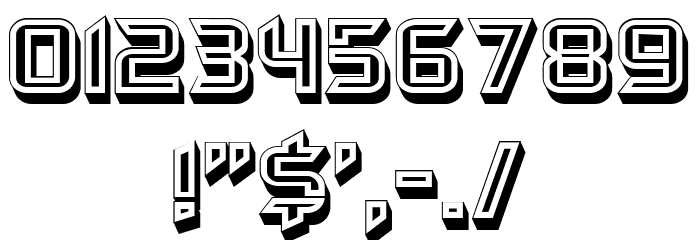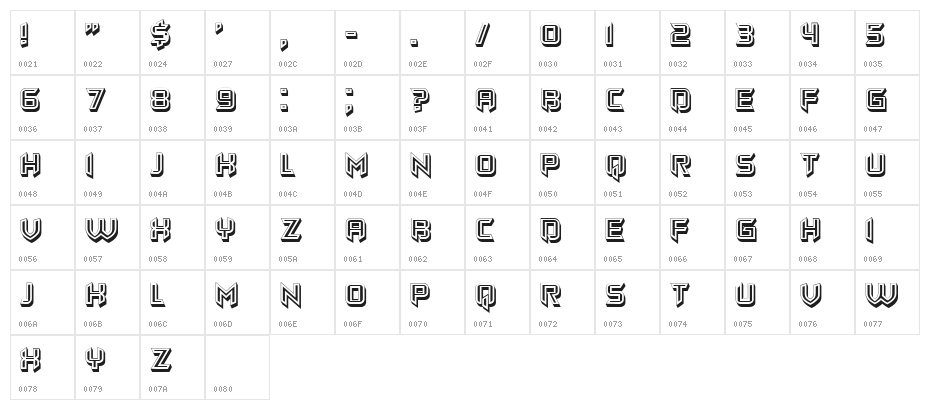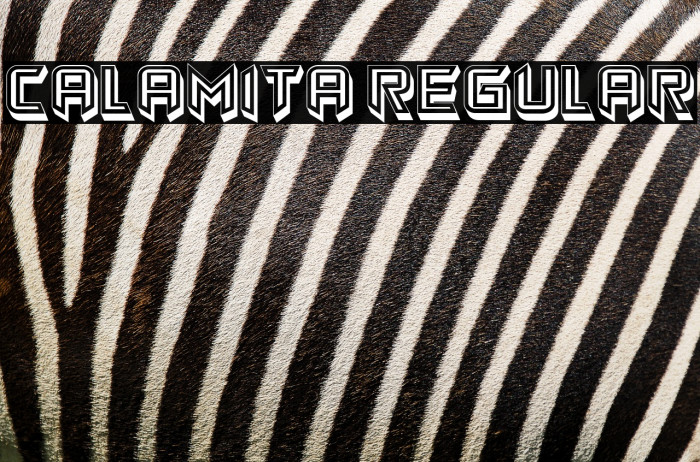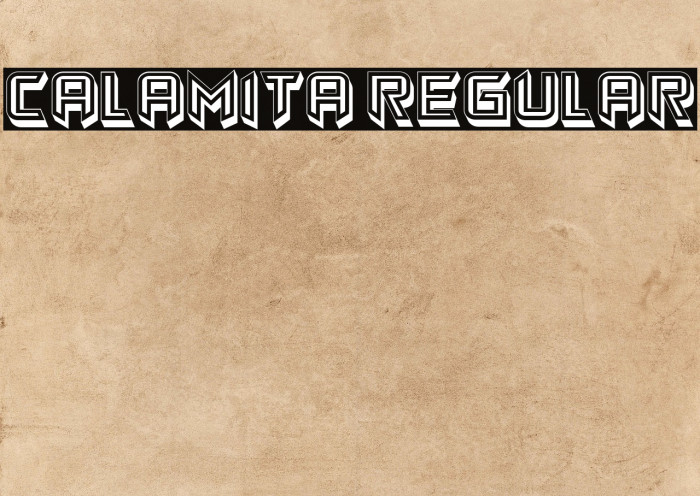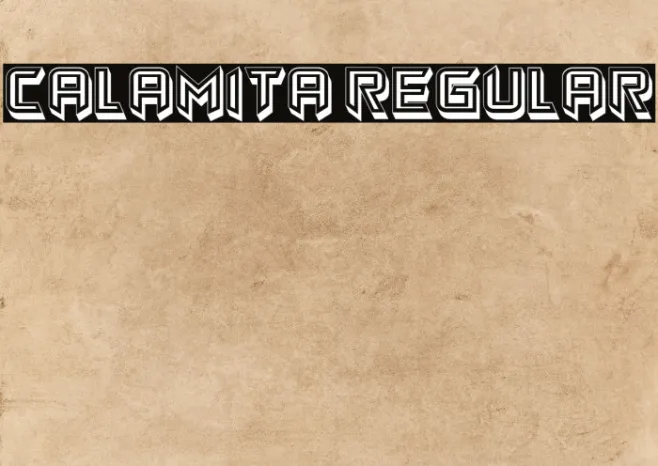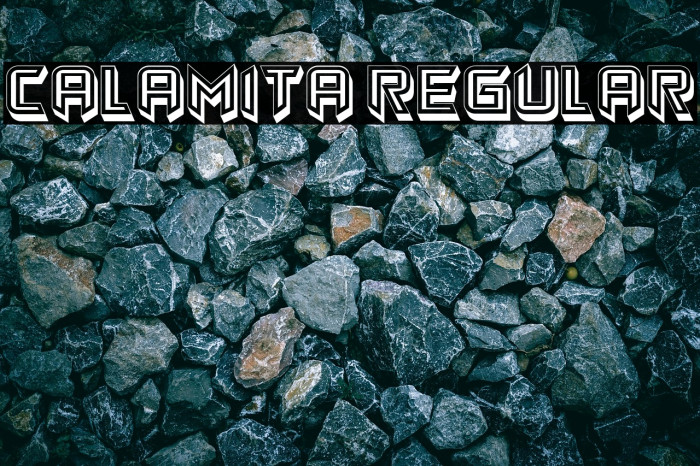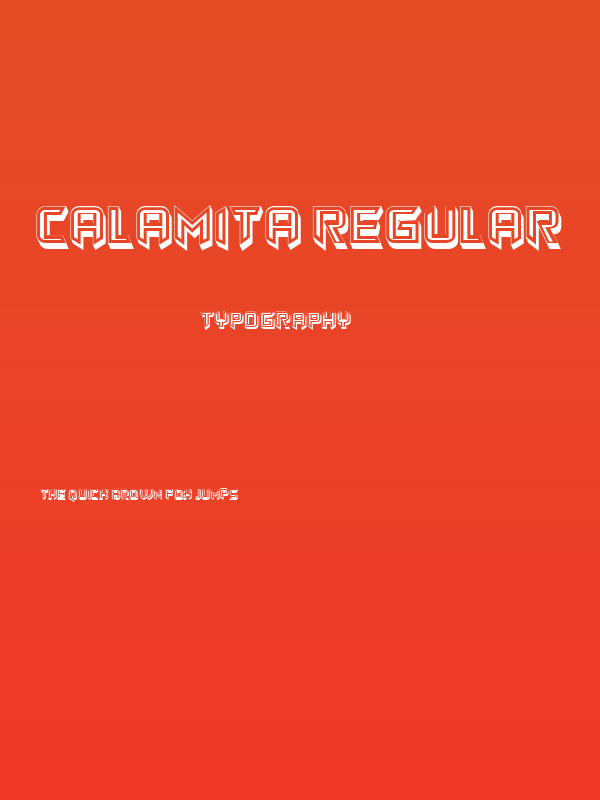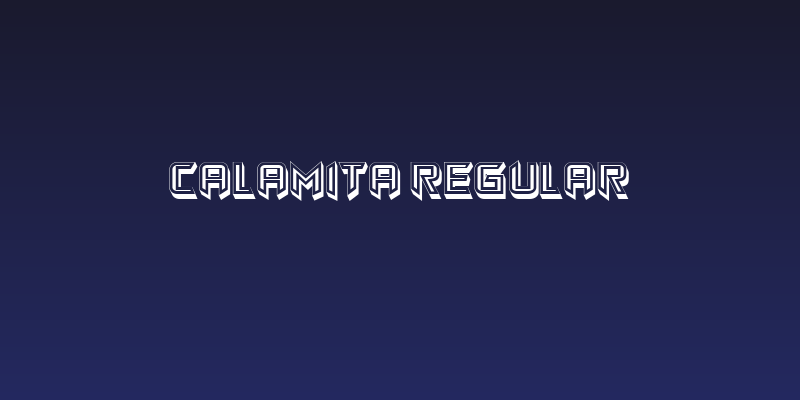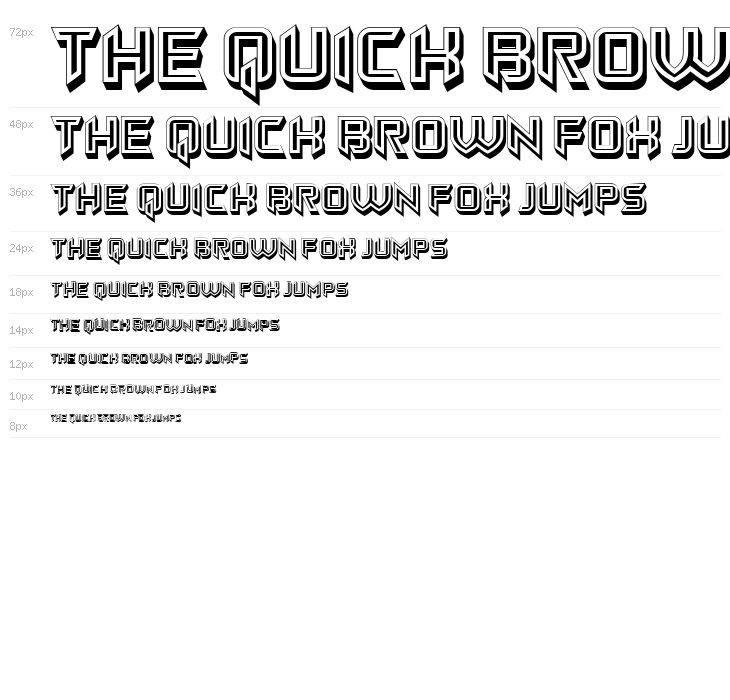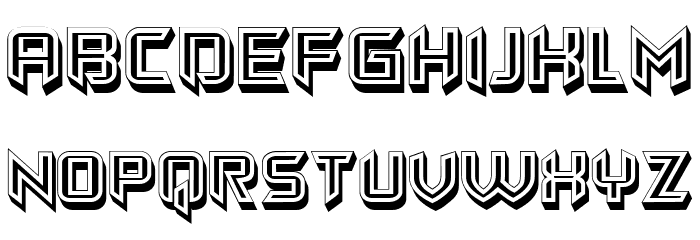
Calamita Regular Font
Calamita Regular Description
This font features a bold, three-dimensional design with a striking shadow effect that gives it a sense of depth and dynamism. The characters are outlined with a thick black border, enhancing their visibility and impact. The geometric shapes and sharp angles contribute to a modern and edgy appearance, making it ideal for attention-grabbing headlines or titles. The uppercase and lowercase letters maintain a consistent style, ensuring uniformity across different text elements. The numerals and special characters are designed to match the bold and dynamic aesthetic, providing a cohesive look throughout.